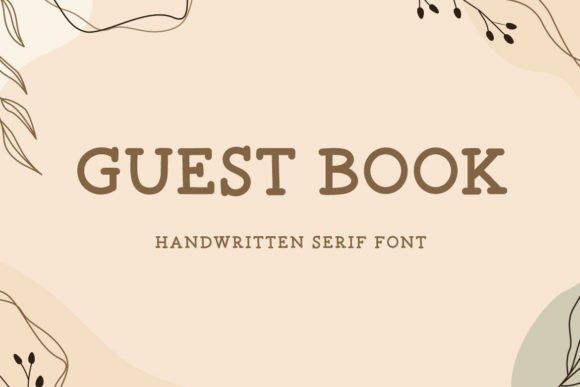
Introducing Guest Book Font, the ultimate choice for all your creative endeavors! Crafted with passion and precision by the talented team at Mightyfire, this extraordinary handwritten serif font is a true gem in the world of typography. With its captivating appeal and versatility, Guest Book Font is not just a font; it's a masterpiece that will bring your projects to life!
Are you searching for the perfect font to enhance your book publishing journey? Look no further! Guest Book Font is the answer to all your typography dreams. Its elegant and refined design adds a touch of sophistication to any book cover or title, instantly capturing the attention of your readers. Let your words flow effortlessly on the pages, as Guest Book Font sets the stage for an extraordinary reading experience.
But that's not all! Guest Book Font is not limited to book publishing alone. Its versatility knows no bounds! Use it to create eye-catching comic books that will transport your readers into captivating worlds of adventure. With its playful yet professional look, this font is perfect for posters, school projects, flyers, and advertisements that demand attention.
In the digital age, social media has become a powerful tool for communication and self-expression. Stand out from the crowd with Guest Book Font as your secret weapon. Craft engaging social media content that leaves a lasting impression on your followers. Whether it's an inspirational quote, a thought-provoking message, or a captivating caption, Guest Book Font will ensure your words are visually stunning and impossible to ignore.
Looking to establish a unique brand identity? Your logo is the face of your business, and Guest Book Font will make it unforgettable. Its handwritten charm adds a personal touch, while its clean lines ensure professionalism and credibility. Let your logo speak volumes about your brand's creativity, authenticity, and commitment to excellence.
Guest Book Font is more than just a collection of letters; it's an emotional journey. As you immerse yourself in its curves and strokes, you'll feel the passion and dedication that went into its creation. It's a font that speaks to the heart, evoking emotions and creating connections.
Remember, with Guest Book Font, your imagination knows no bounds. Start creating remarkable designs that tell your unique story today!